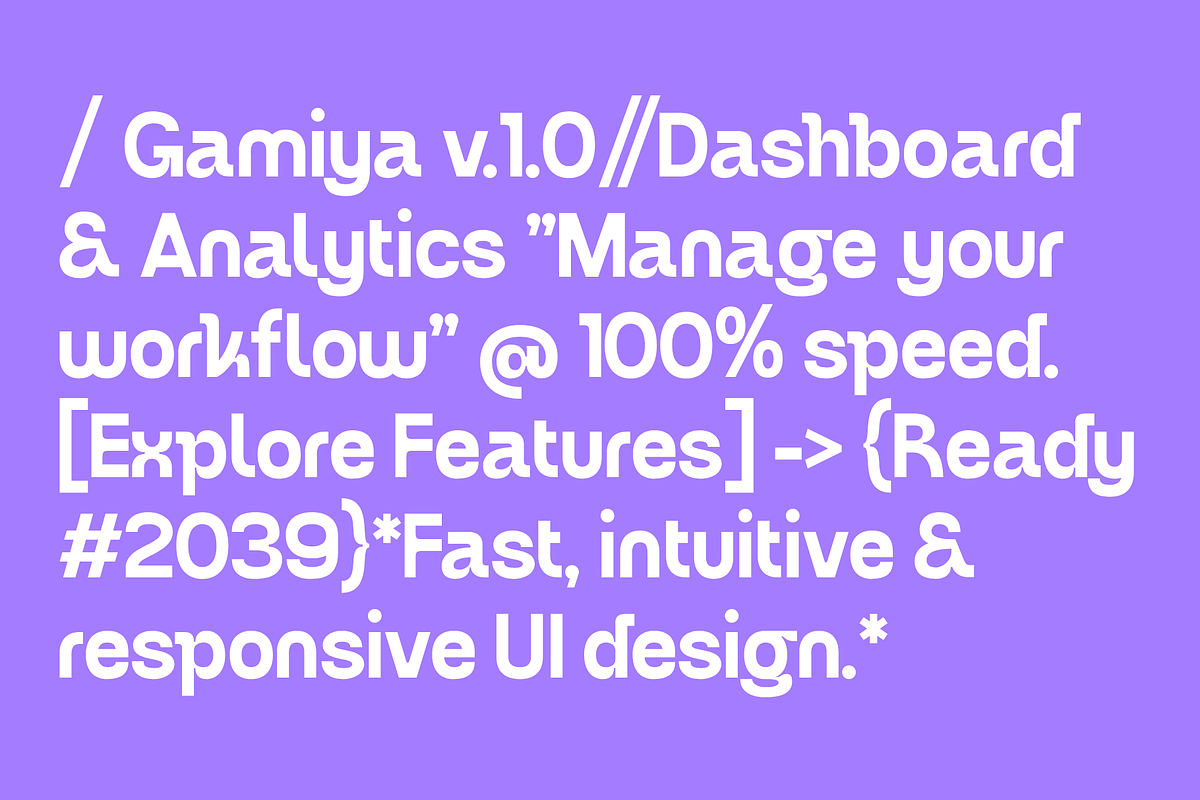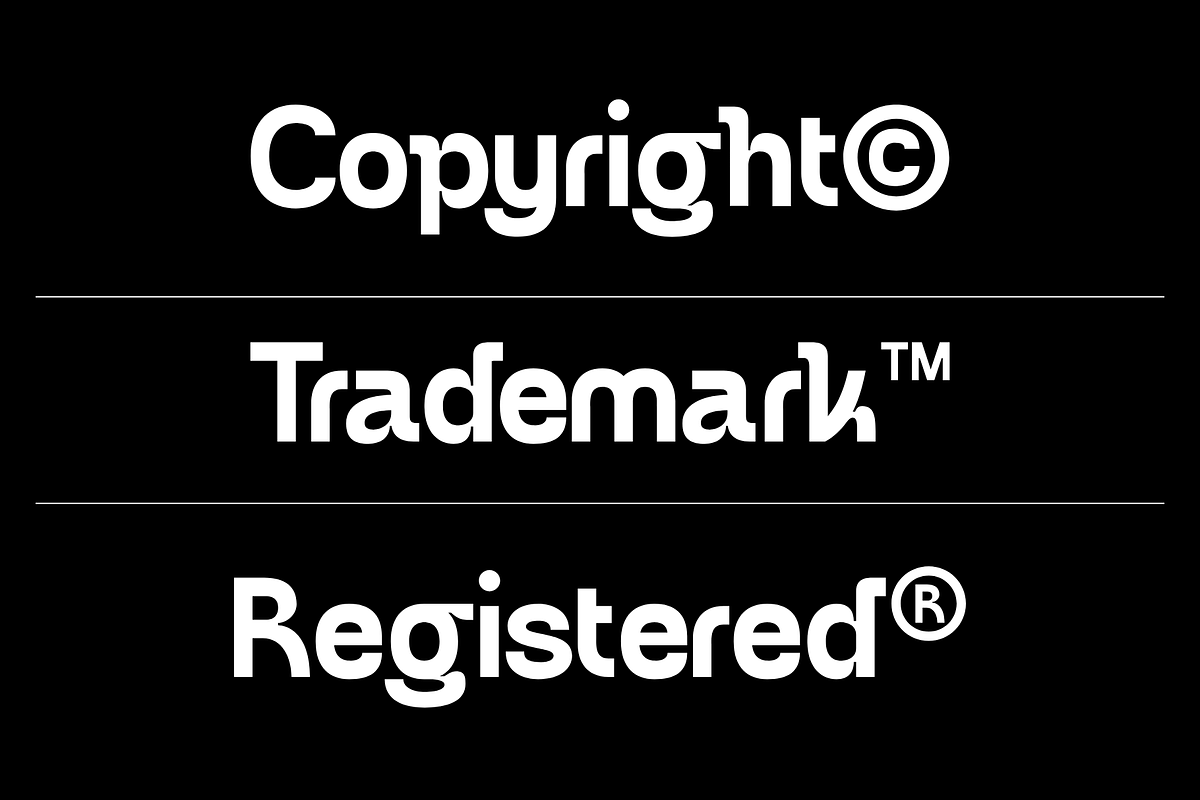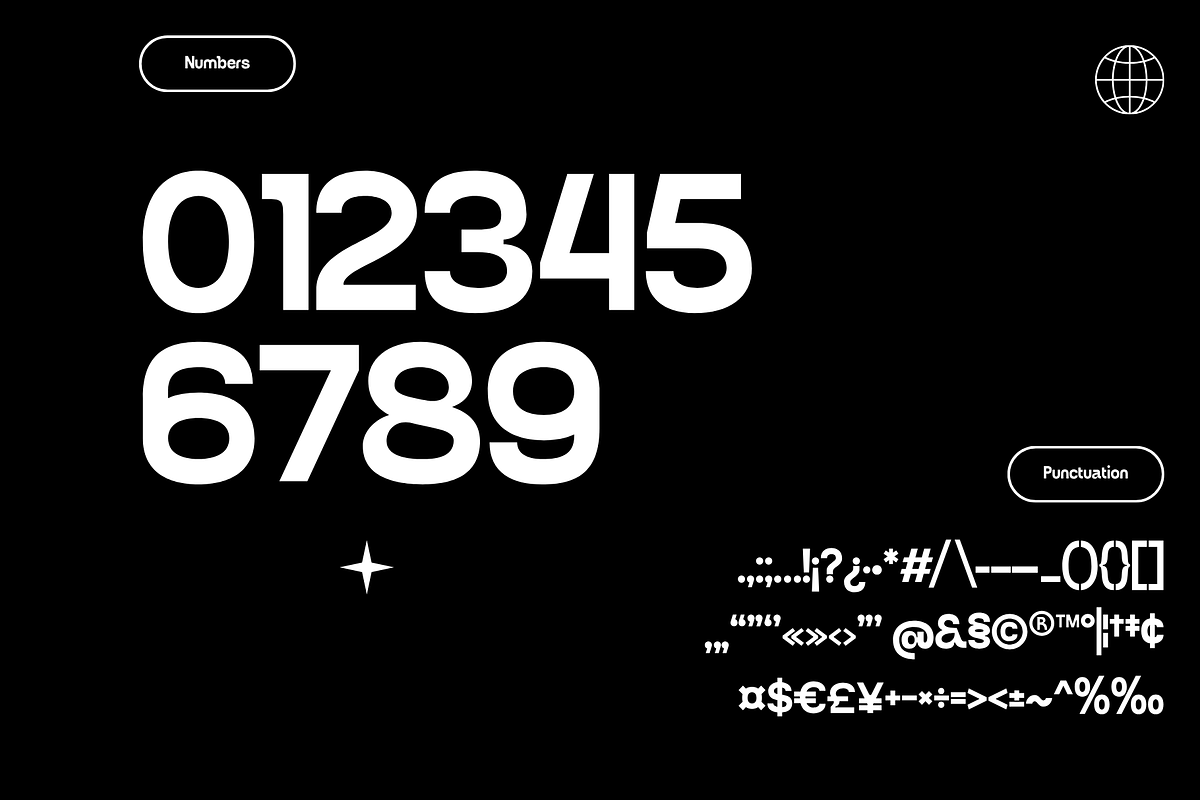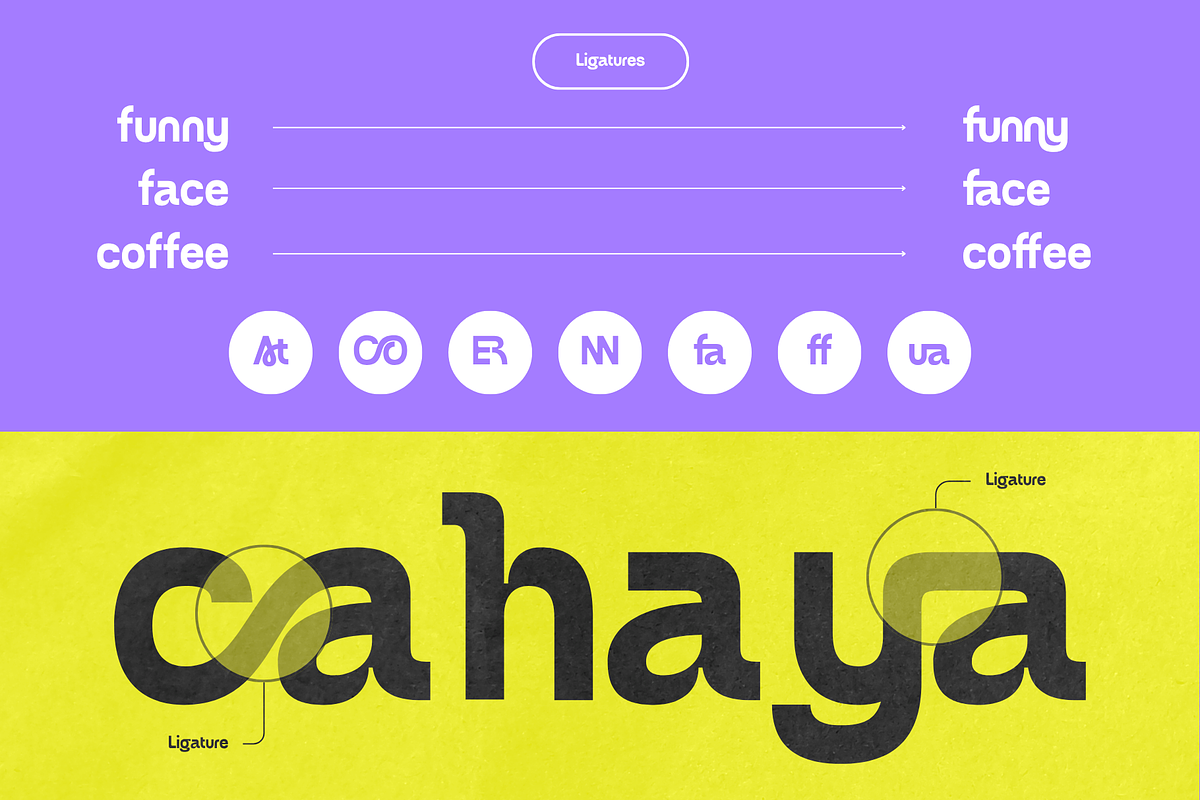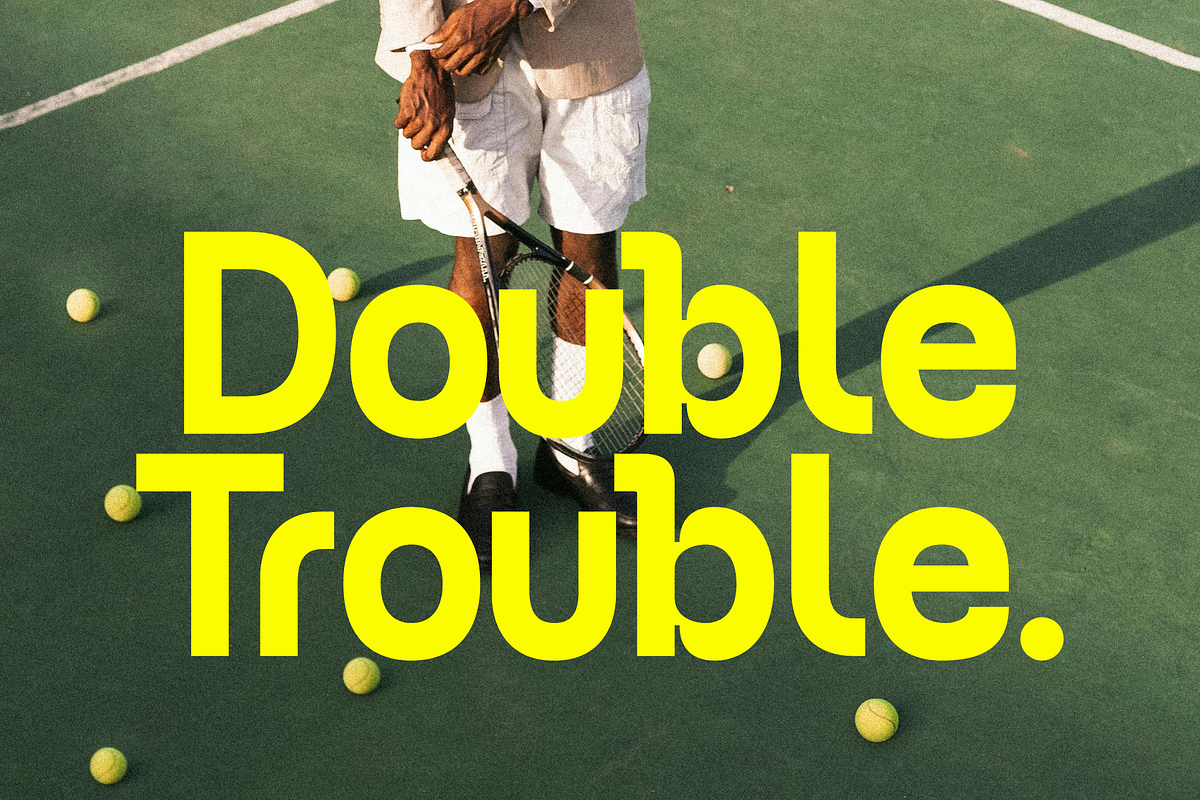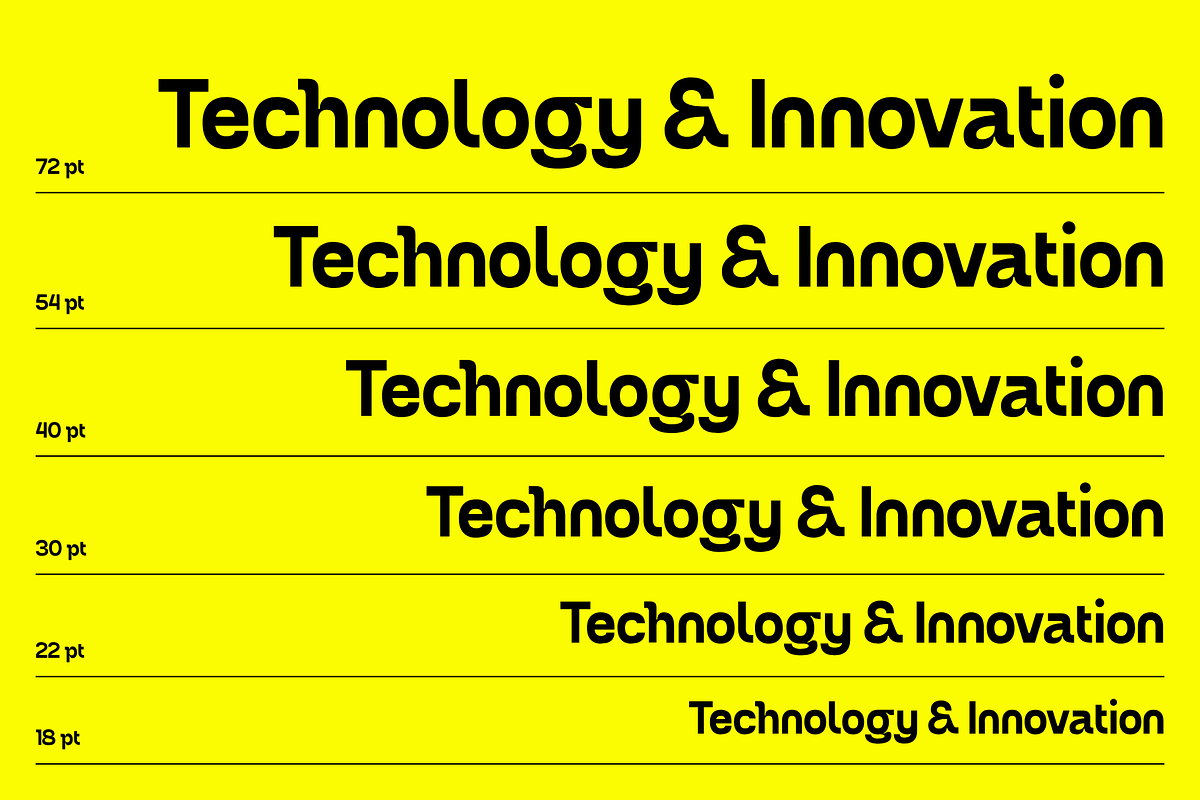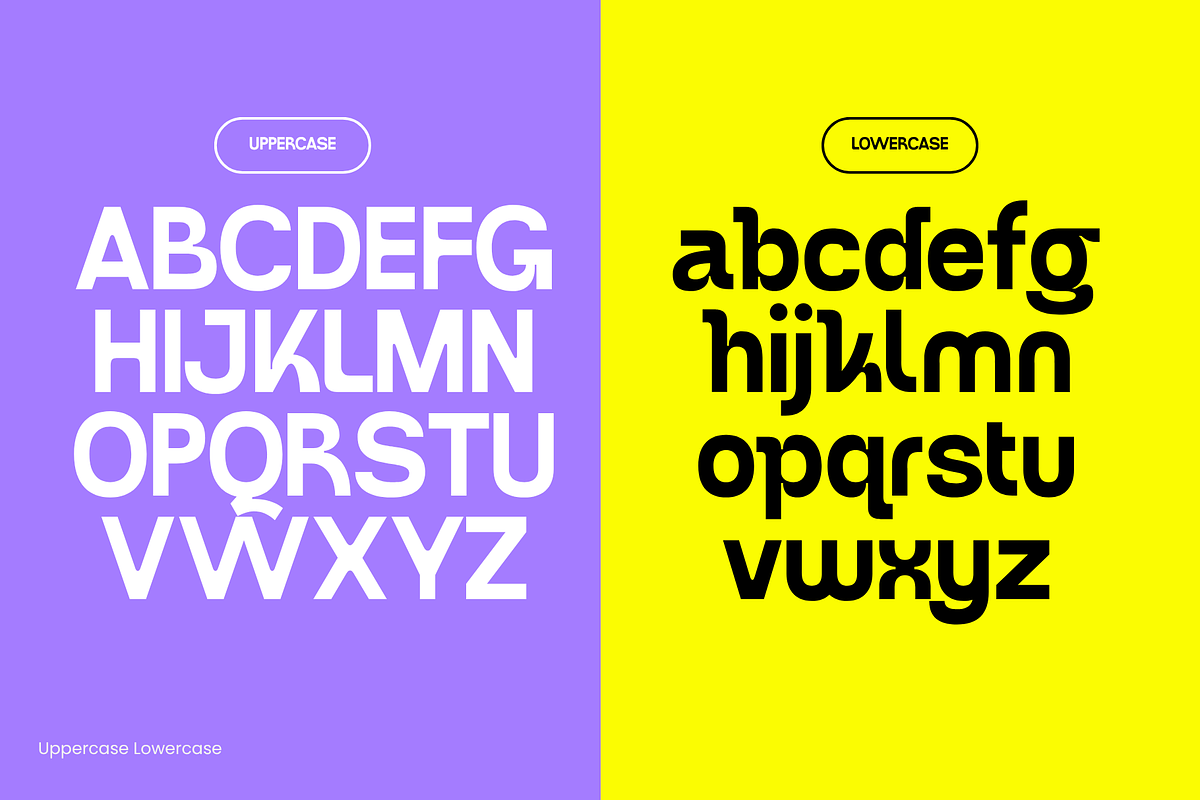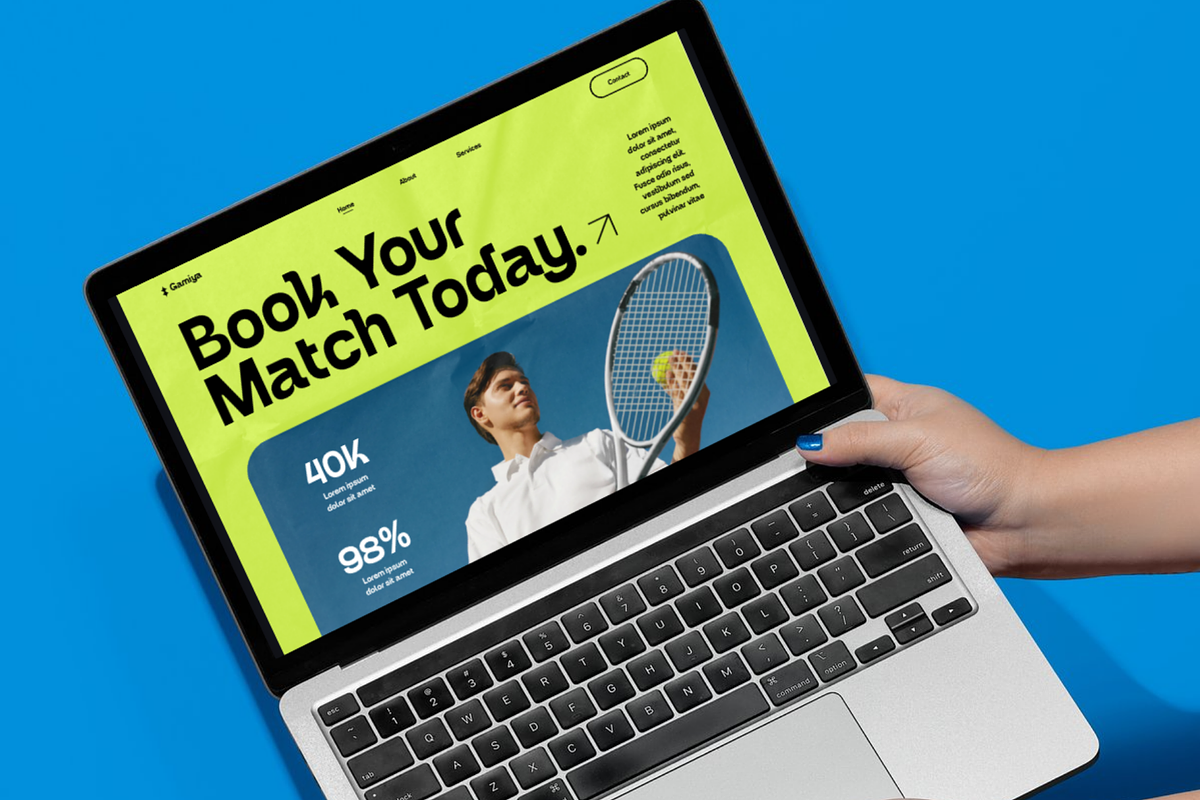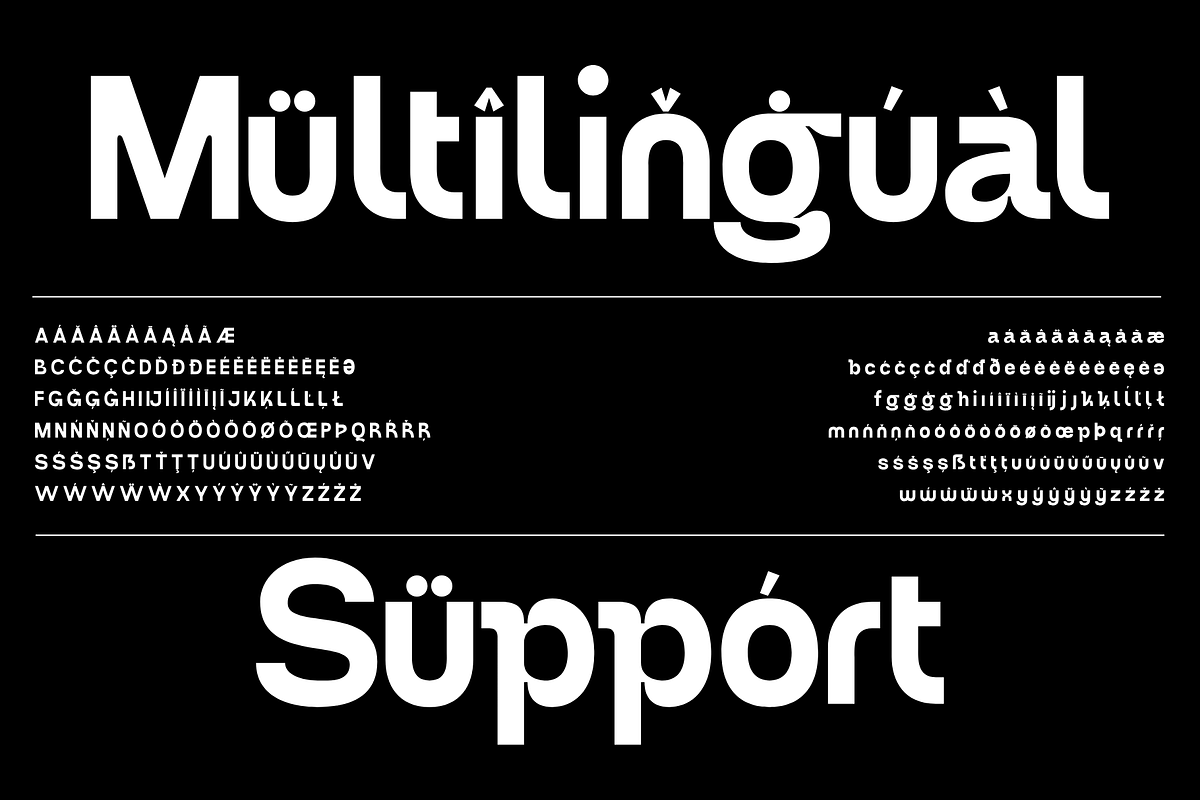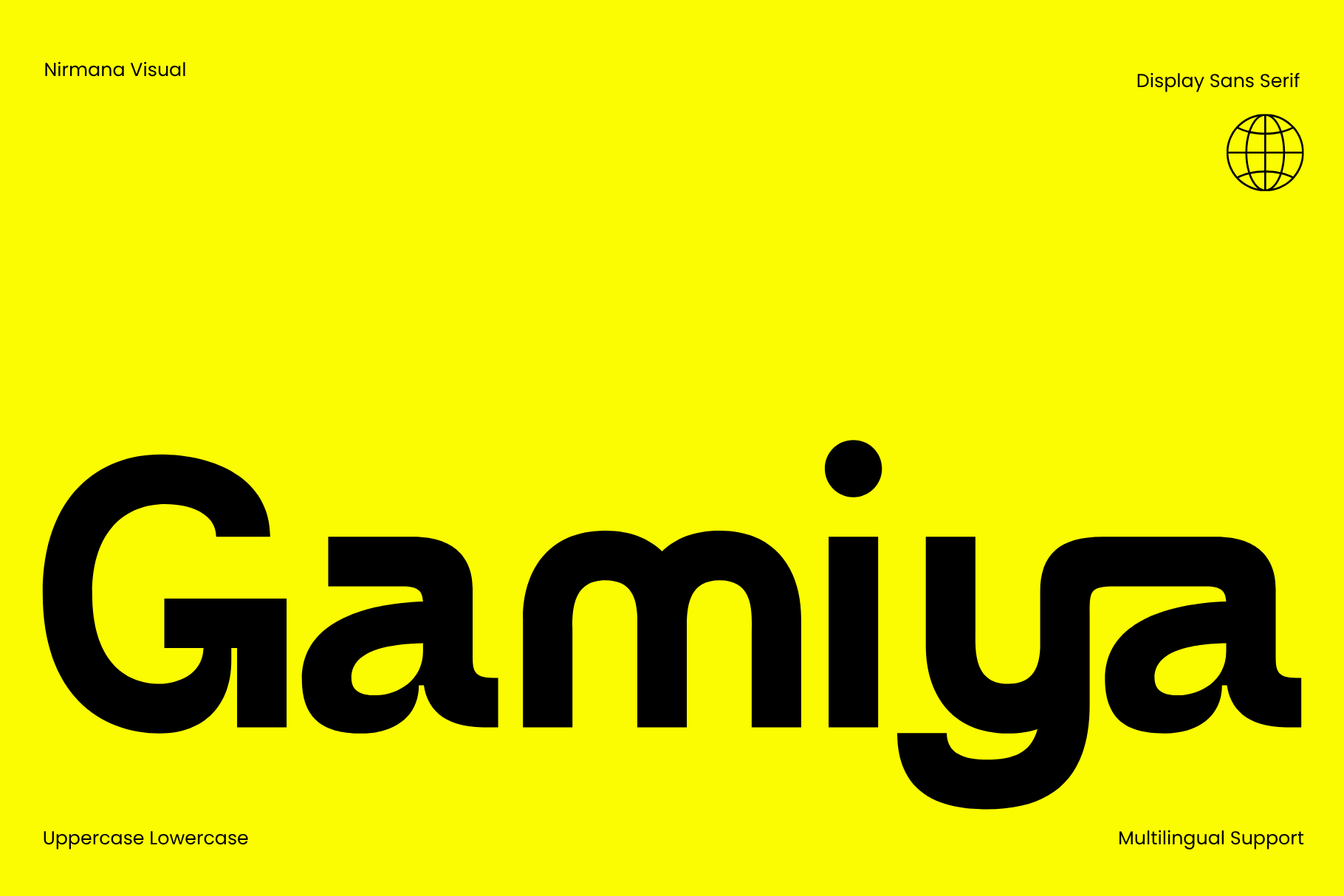
Gamiya – Display Sans Serif Font
Gamiya – Modern & Bold Display Sans Serif Font
Gamiya is a bold, modern display sans serif font crafted by Nirmana Visual. Featuring clean geometric proportions paired with smooth, unique curves, Gamiya delivers a strong, futuristic, and trendy visual impact designed to make headlines pop.
Perfect for high-impact branding, logos, magazine covers, posters, packaging, social media graphics, streetwear design, and web banners.
Style: Modern Display Sans Serif
Character Set: Uppercase & Lowercase letters
Language Support: Multilingual support
Ideal For:
Logo Design & Brand Identity
Bold Headlines & Typography Posters
Fashion, Apparel & Streetwear Branding
Album Art, Book Covers, & Magazine Layouts
Web Banners, UI/UX Accents, & Digital Ads